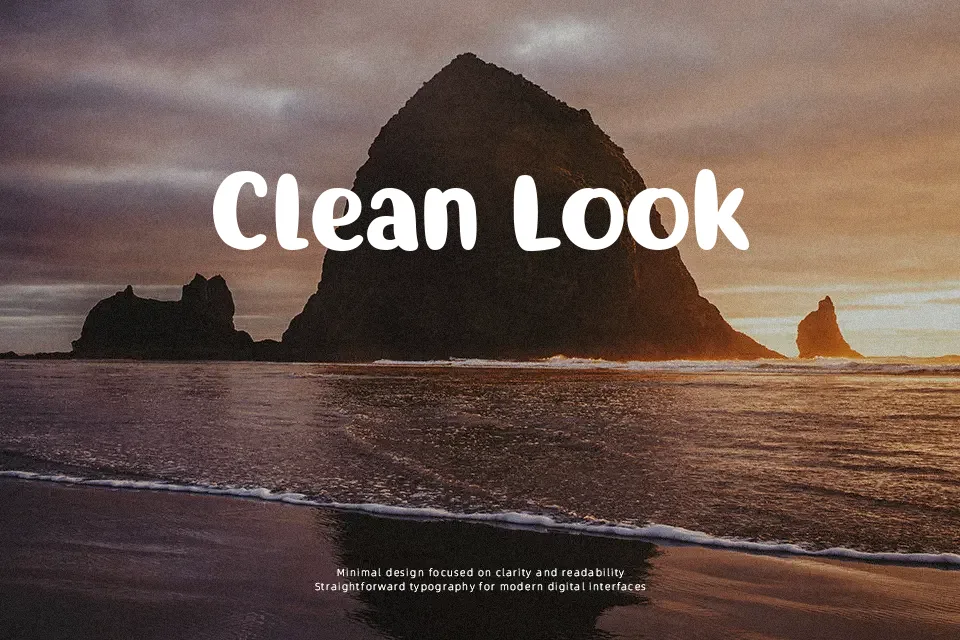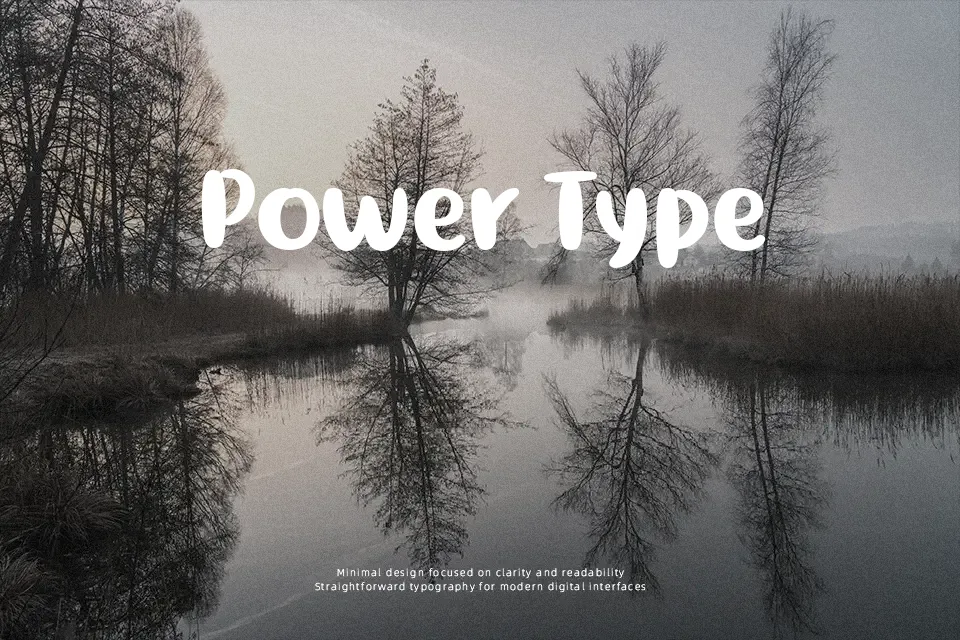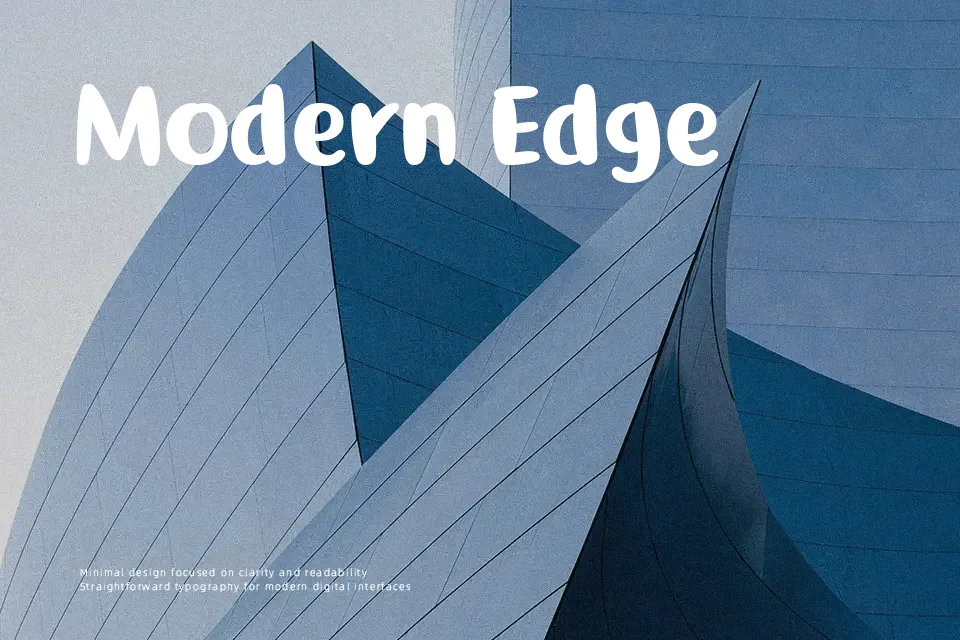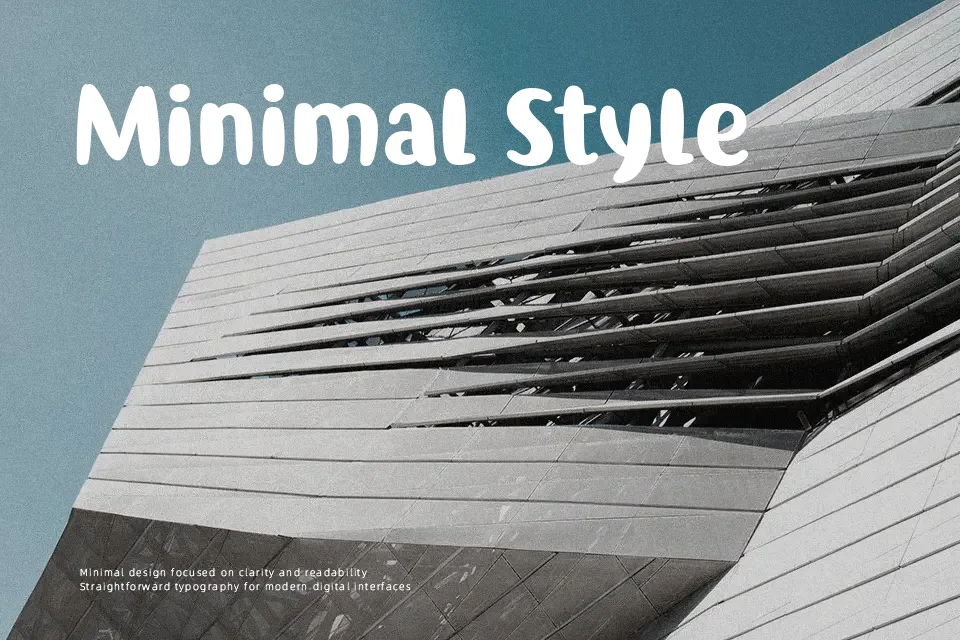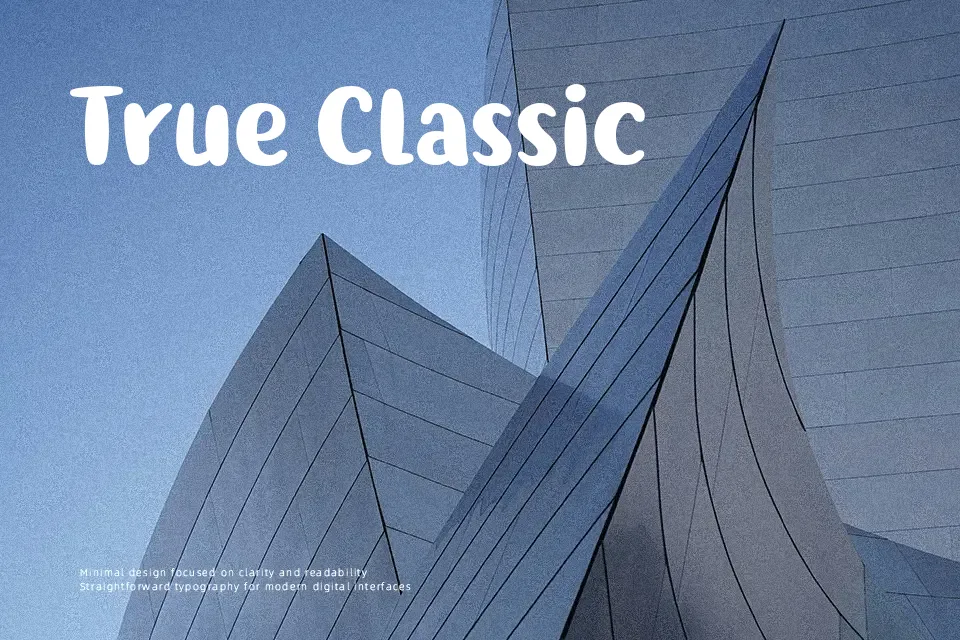
Ribeat Font
This typeface performs best when displayed at larger sizes, where the smooth brush letterforms of Ribeat Font can truly stand out. The typography relies on soft, rounded terminals and thick strokes to create a warm, approachable rhythm. Its slightly bouncy proportions and balanced spacing give the characters a relaxed, casual energy that feels natural in short bursts of text. The thick strokes improve visibility in eye-catching posters, while the fluid connections maintain a cohesive look across logo designs. However, these decorative brush details become less effective at smaller sizes, meaning it is not suitable for dense paragraphs. Tight spacing within continuous reading environments can reduce comfort, making this design best reserved for expressive headlines and creative packaging.
playful product packaging
children’s apparel graphics
creative logo designs
casual poster headlines
Perfect for kids, logo, and packaging, with a creative and brush style.